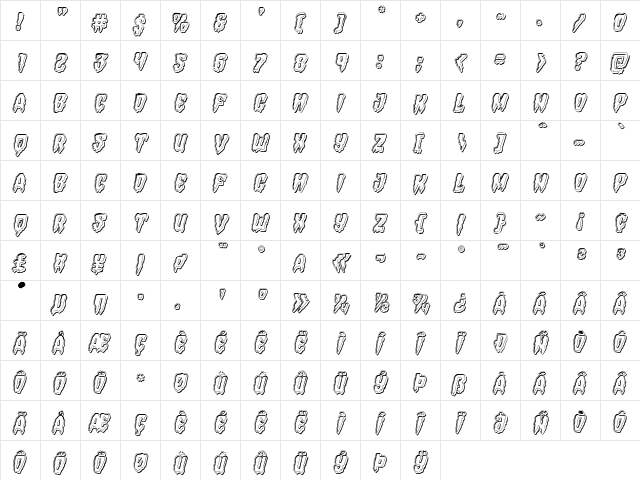
Hemogoblin Engraved Italic Italic
Design Context for Hemogoblin Engraved Italic Typeface
Hemogoblin Engraved Italic is built around its visual character rather than neutral utility — its distinctive forms are designed to make an impression at display sizes. Its italic angle brings a sense of urgency and motion to the letterforms.
Font Pairing: Pair with a clean neutral sans-serif for body copy to let Hemogoblin Engraved Italic's character lead without overwhelming the composition.
Pro Tip: Use Hemogoblin Engraved Italic exclusively at display sizes — it was designed to be seen, not read at length. Let a neutral companion handle body copy.